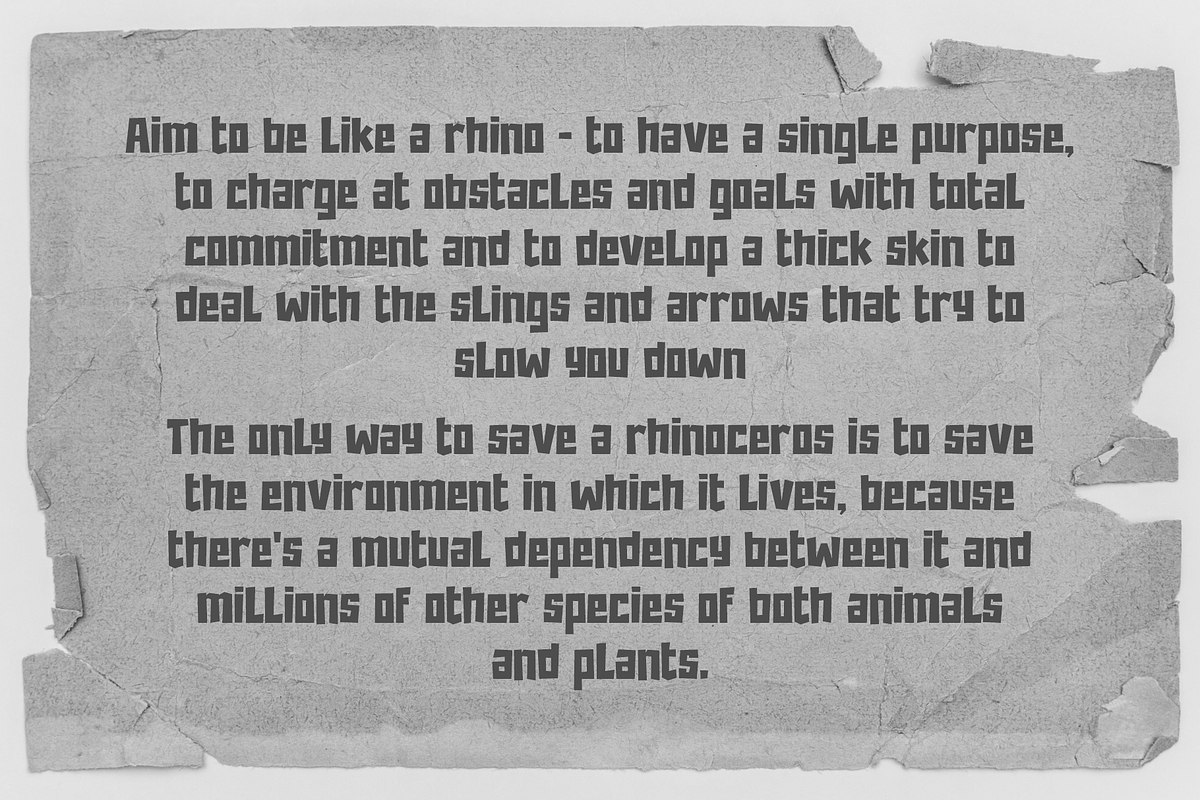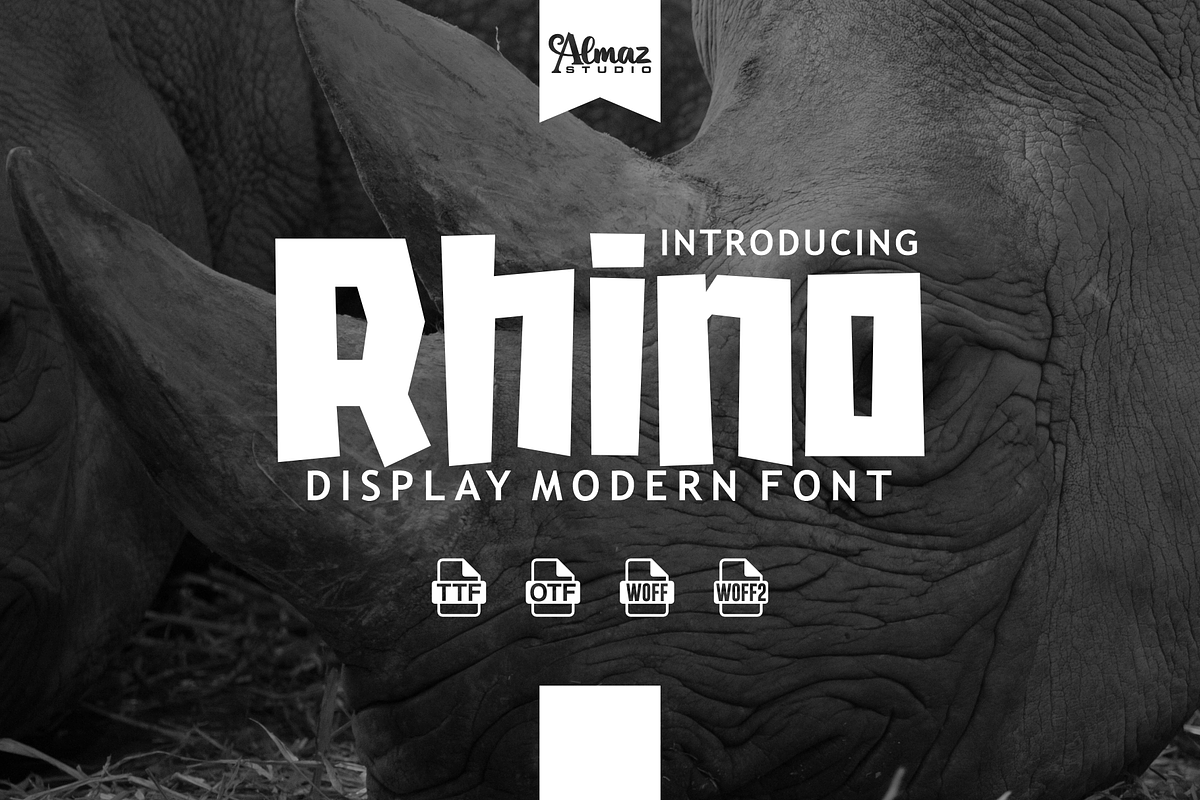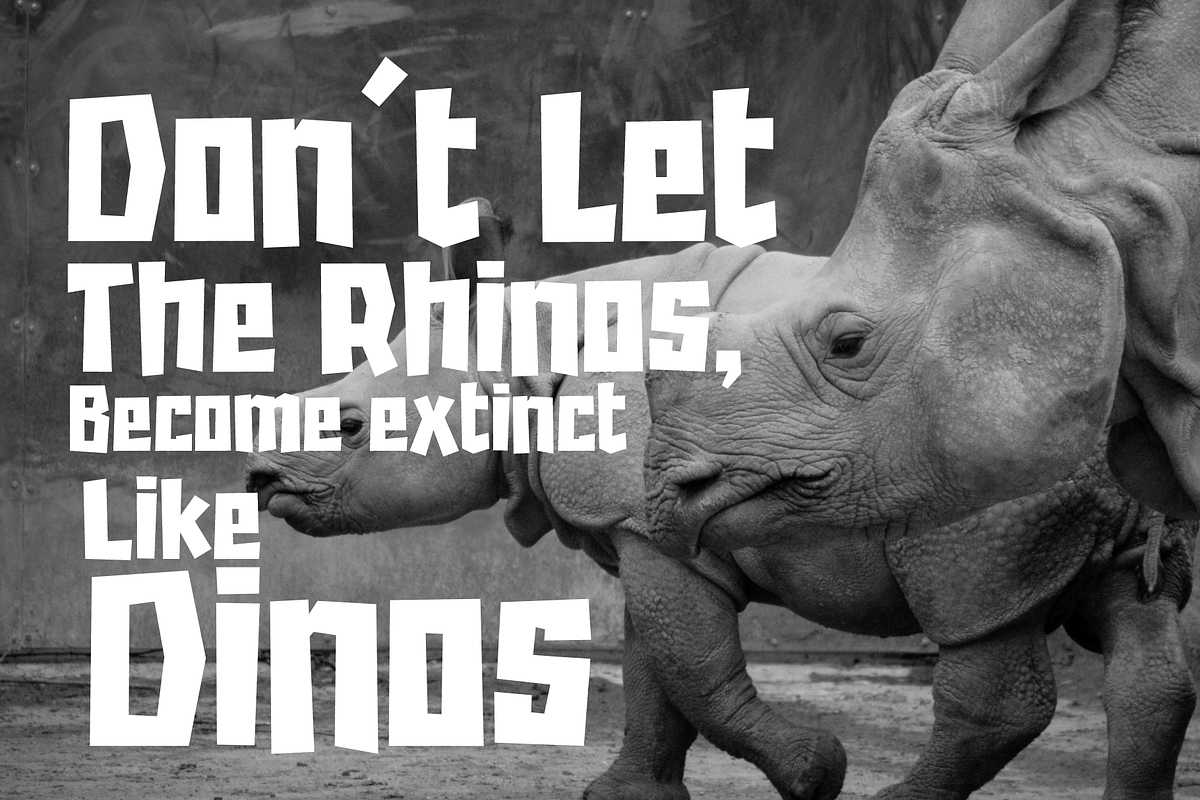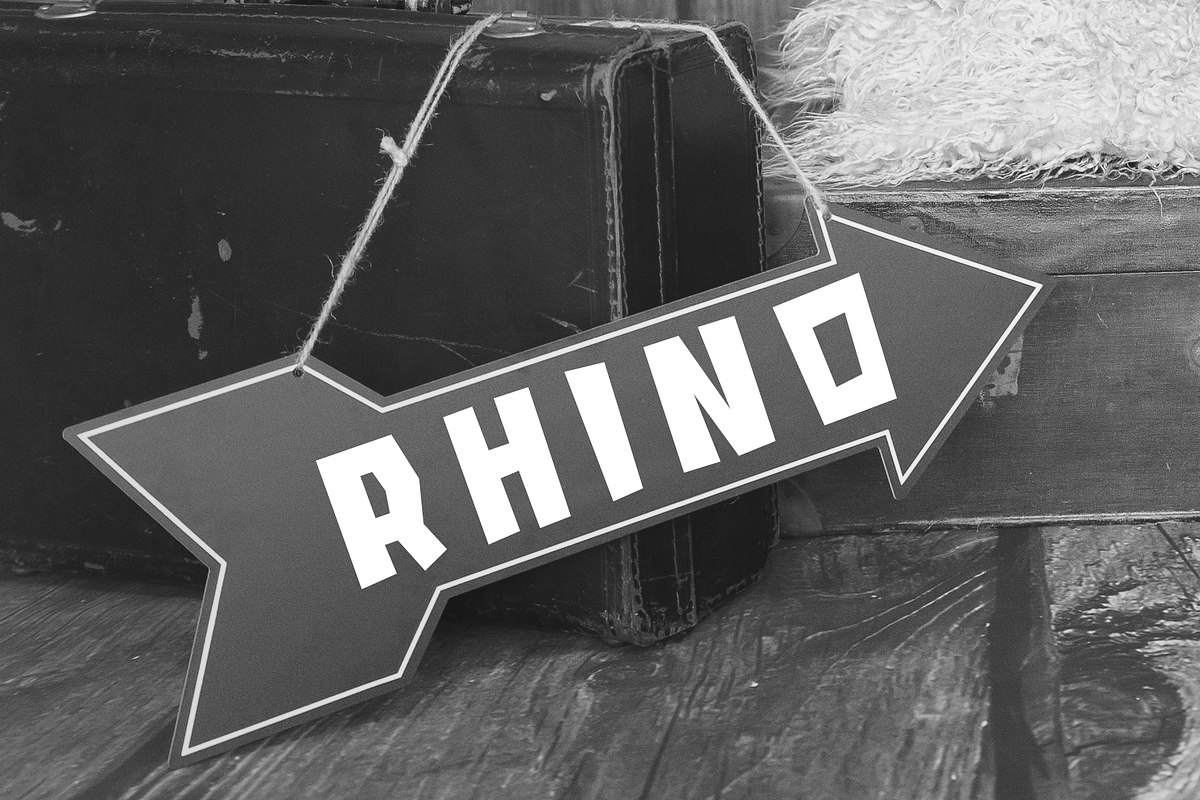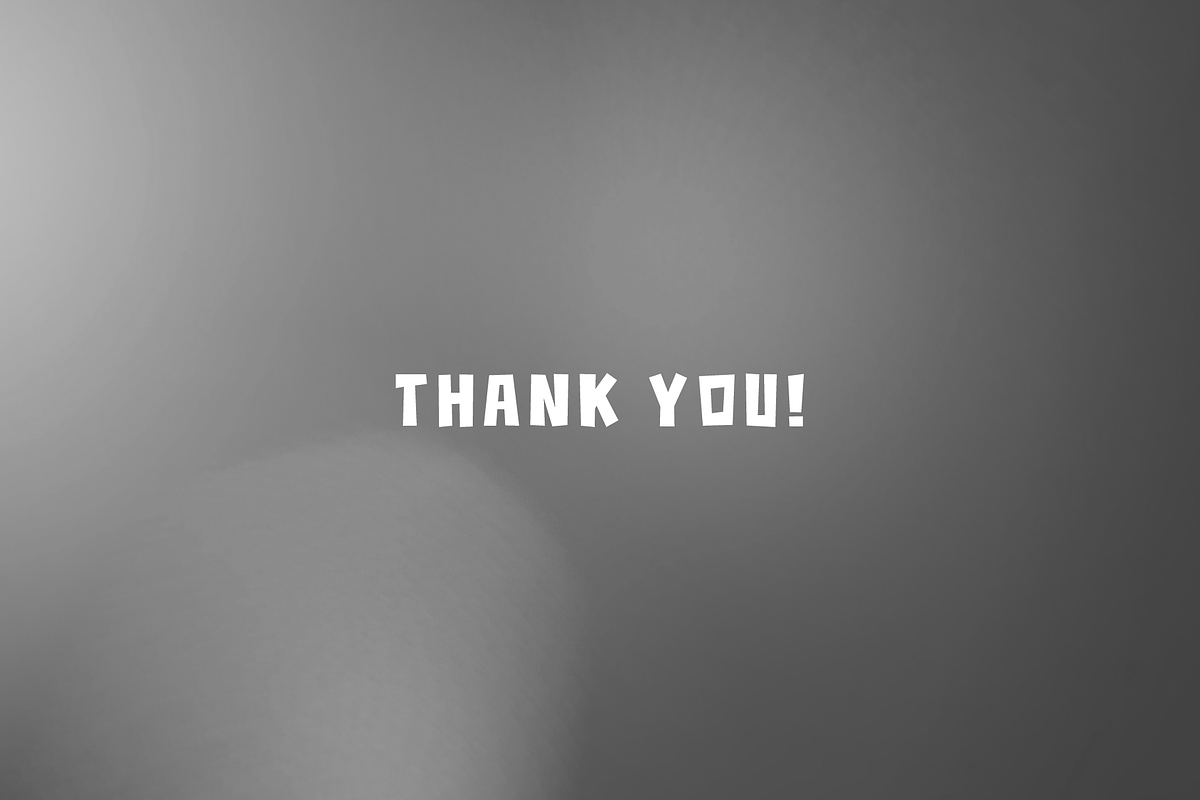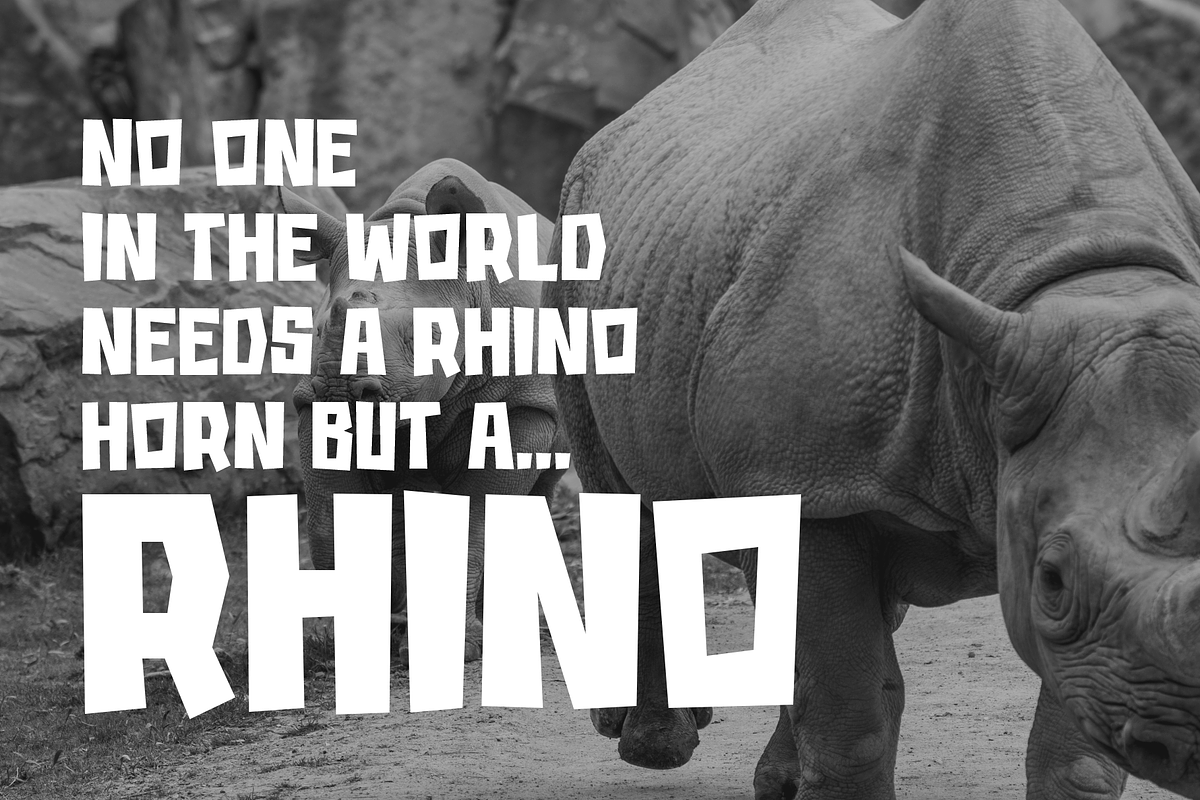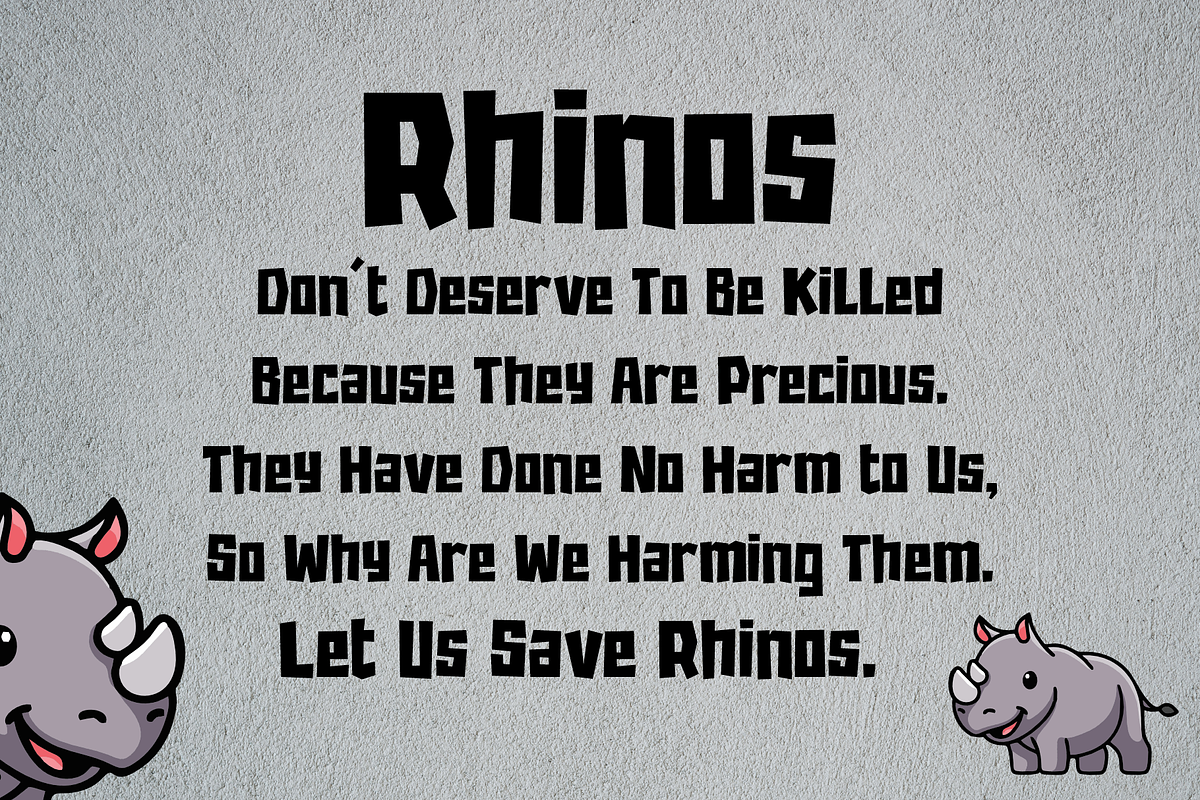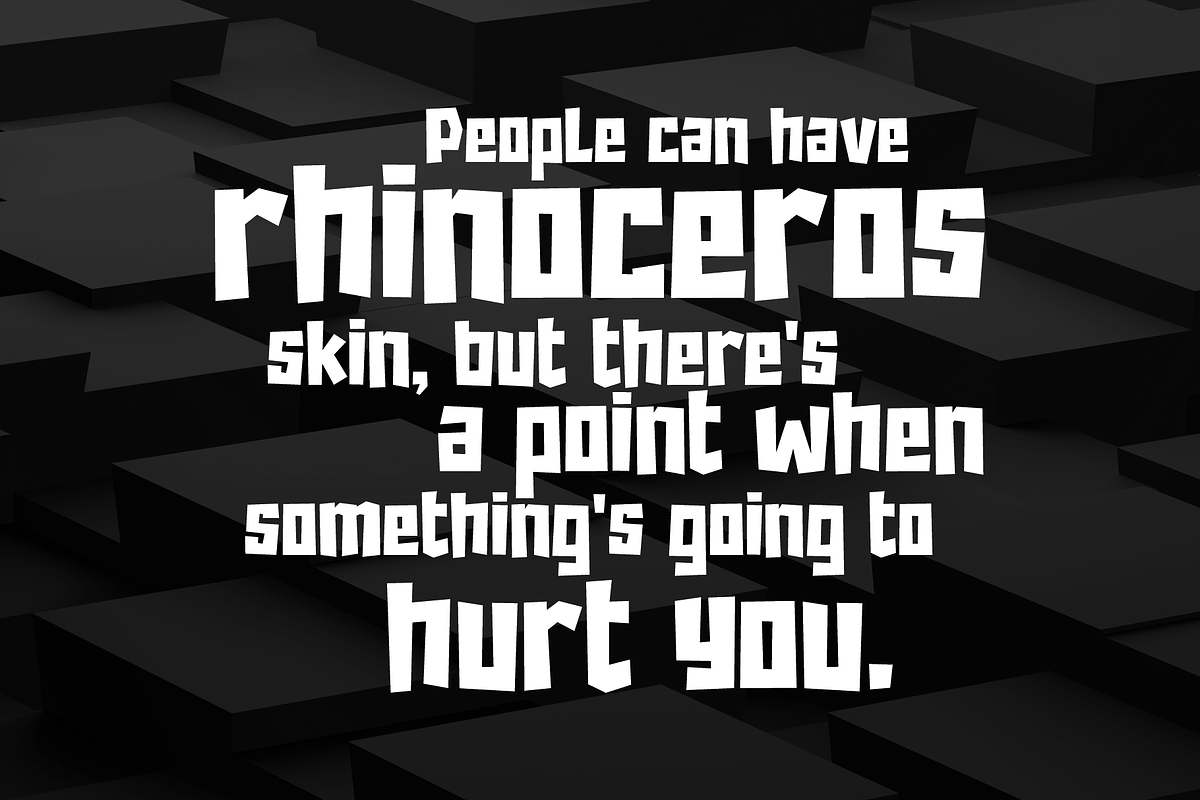
Rhino
Rhino Font It’s a cartoon display font. This font is inspired by cartoon/comic style. The font has a bold, unique style with a clean look that will bring an exclusive fantasy world touch to the design. It will also work for businesses or companies such as, book cover, clothes, food and beverage, games, shops/retails, signs etc. It includes full set of All caps Uppercase and Lowercase Basic Characters, Numerals and Punctuation. The font is perfect for many projects, branding logos, headlines, product packaging, posters, signage, titles, webpage and many more!.